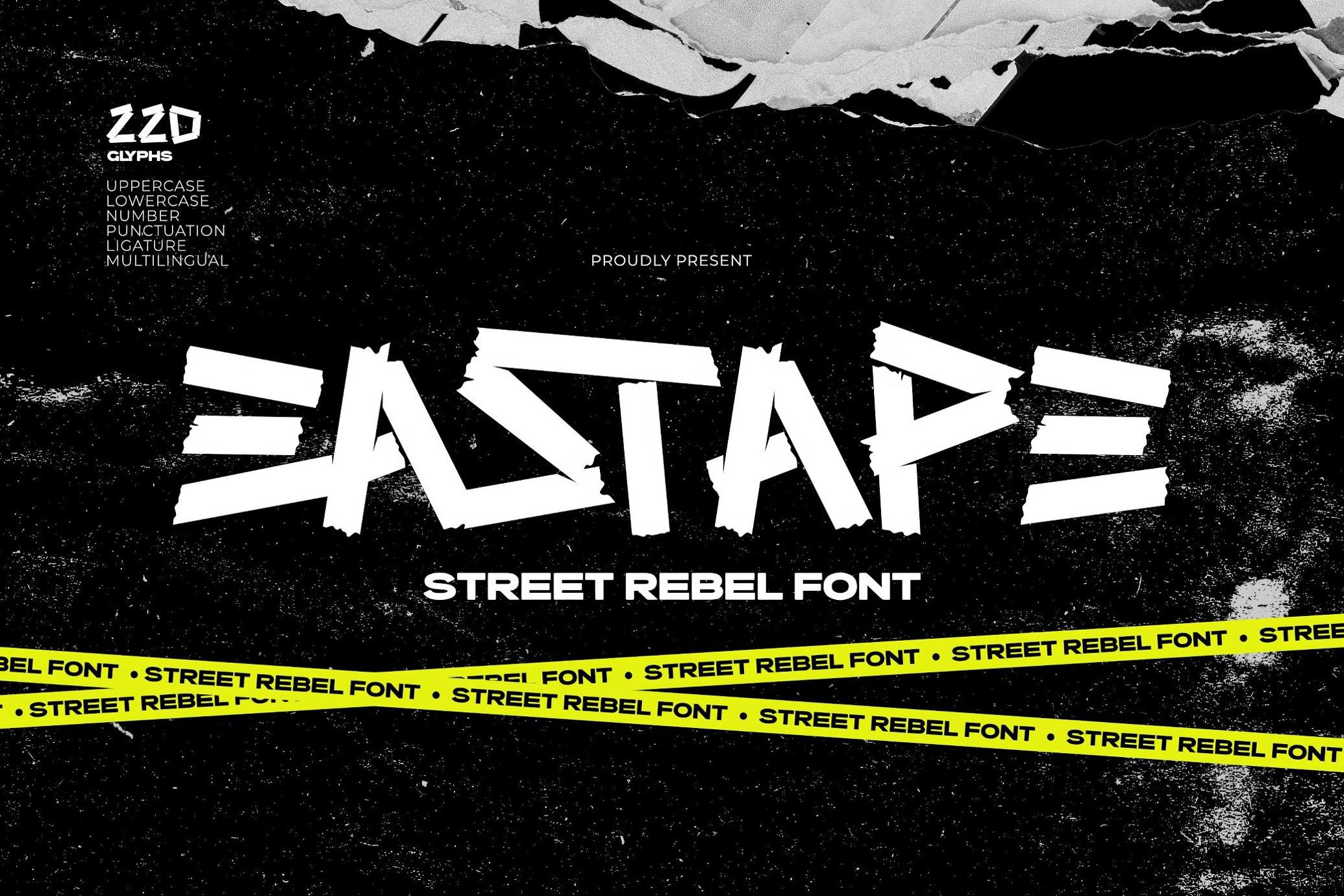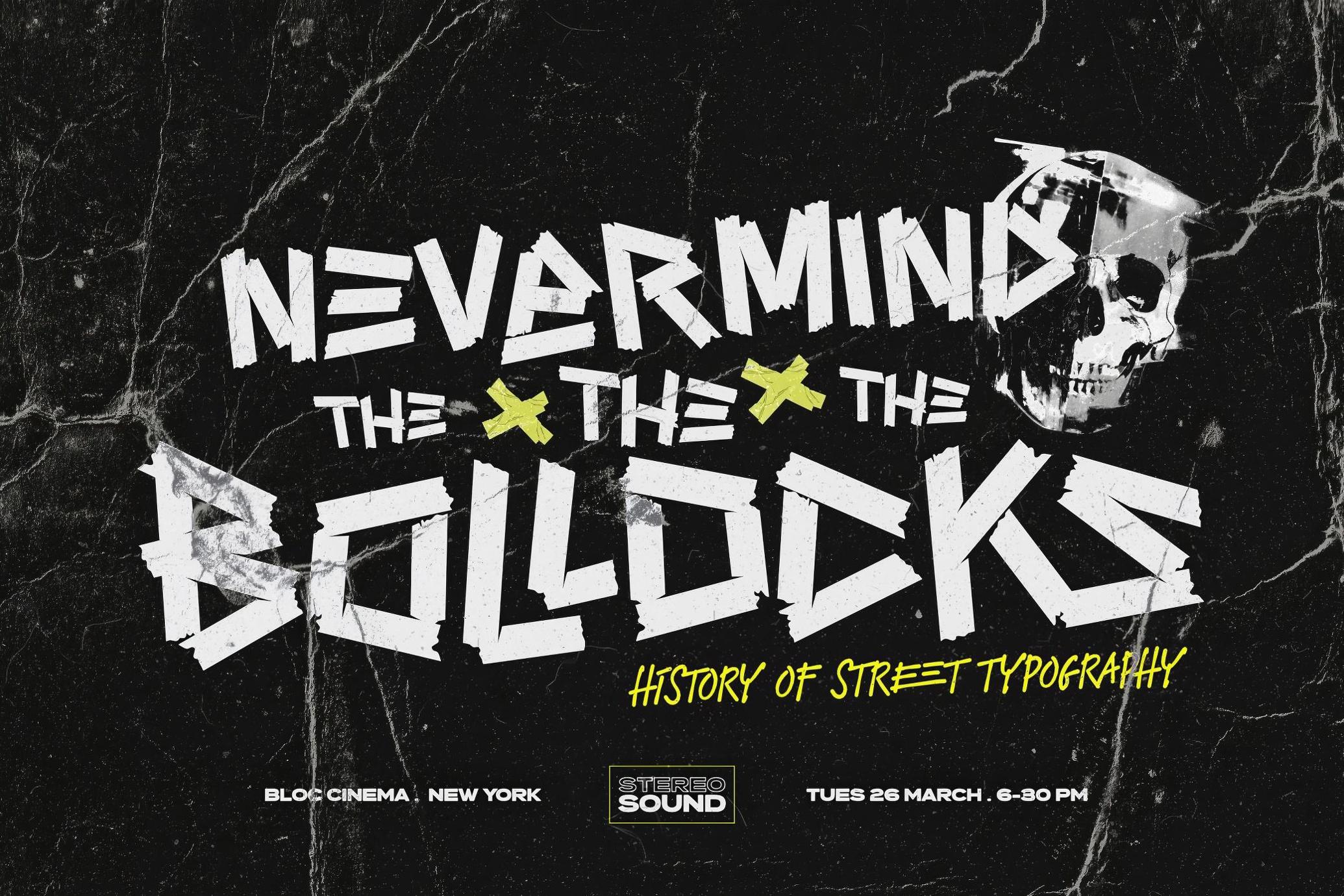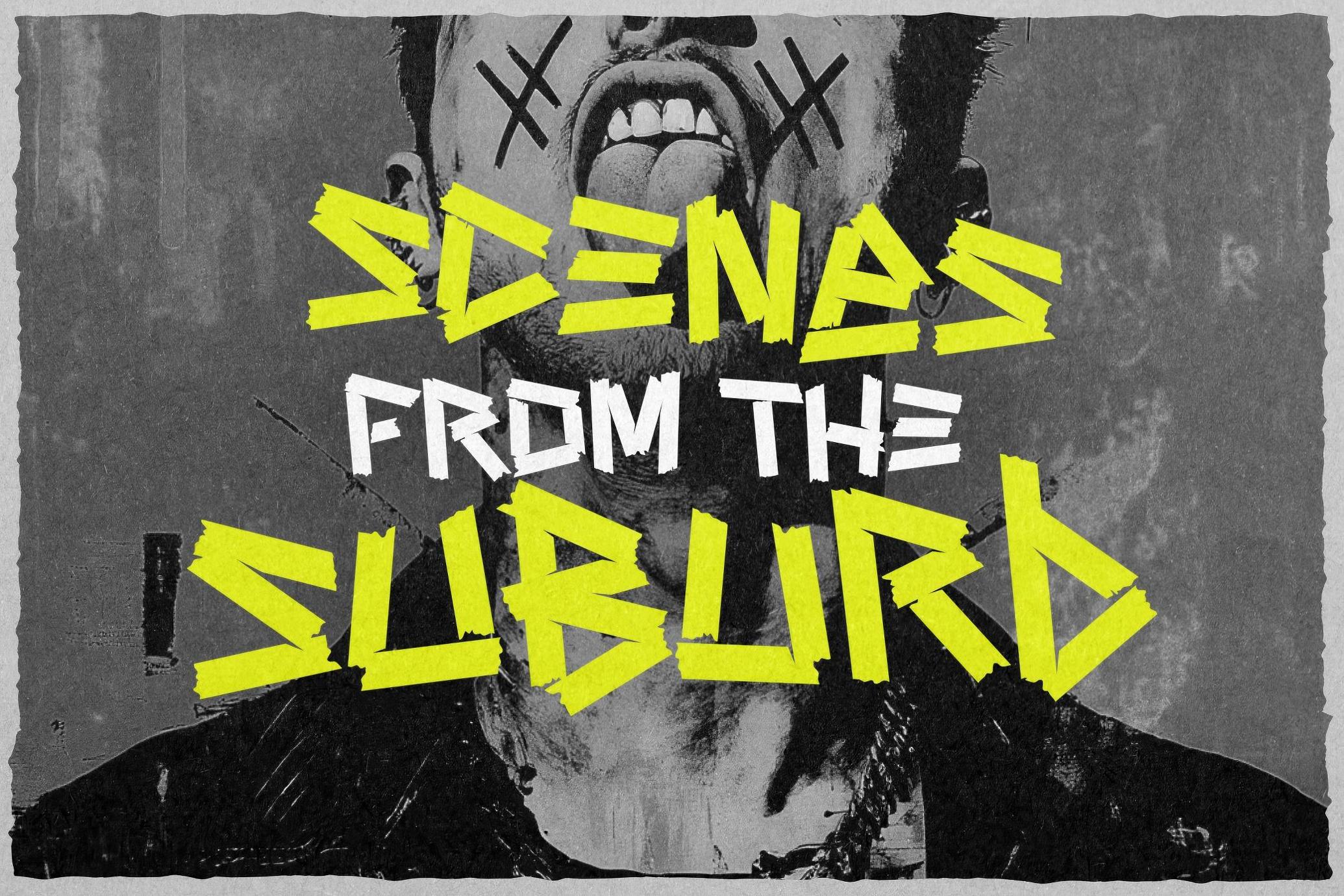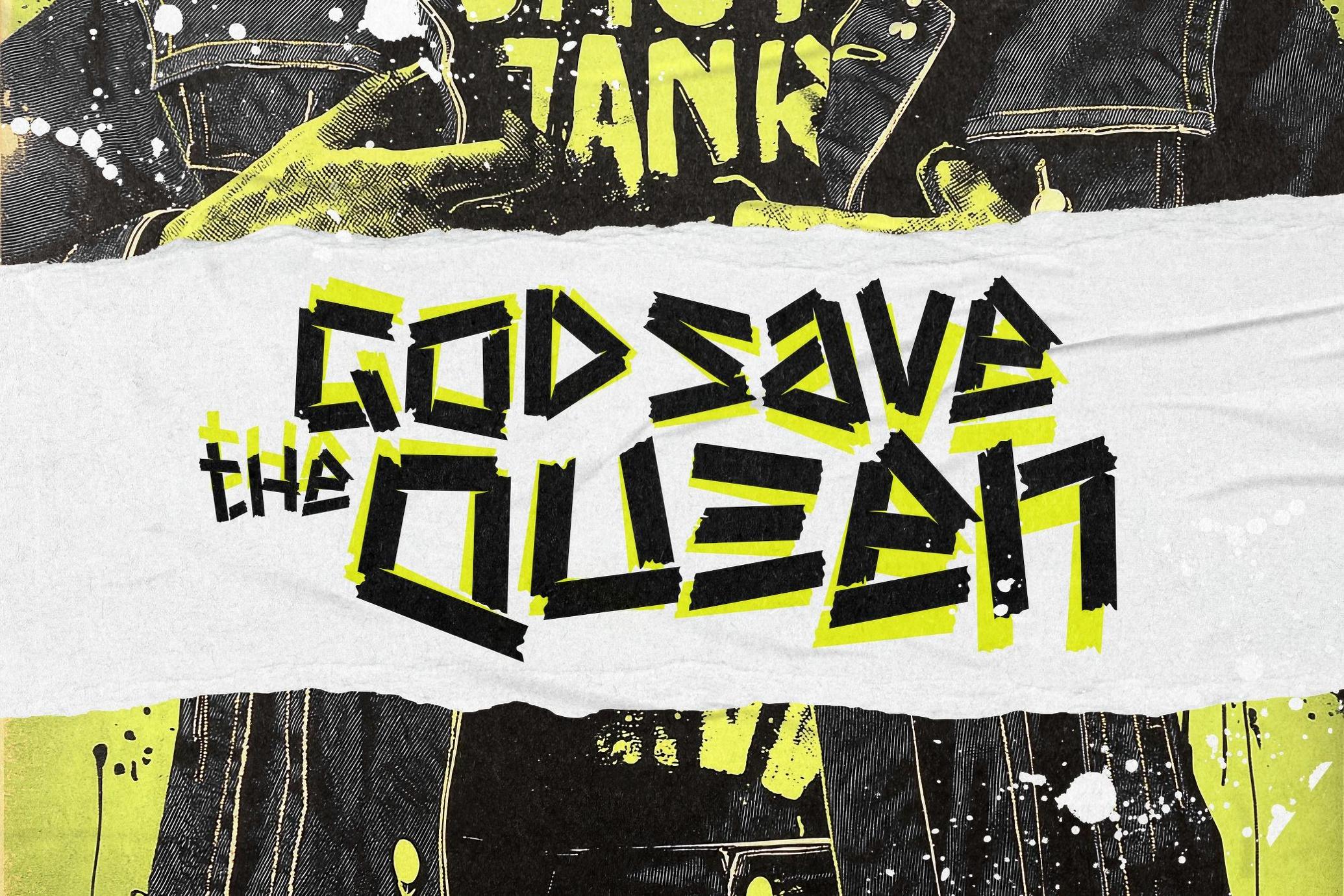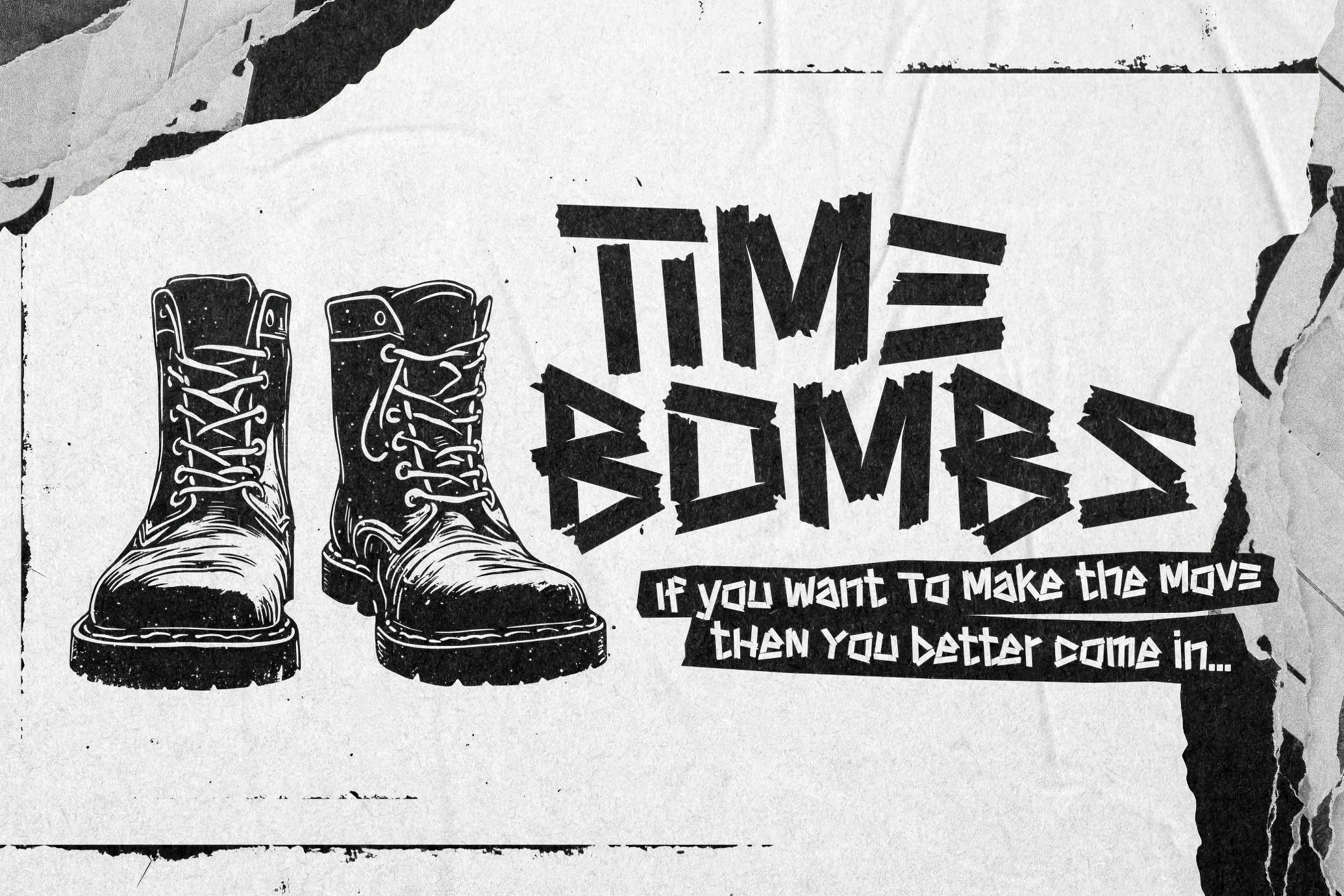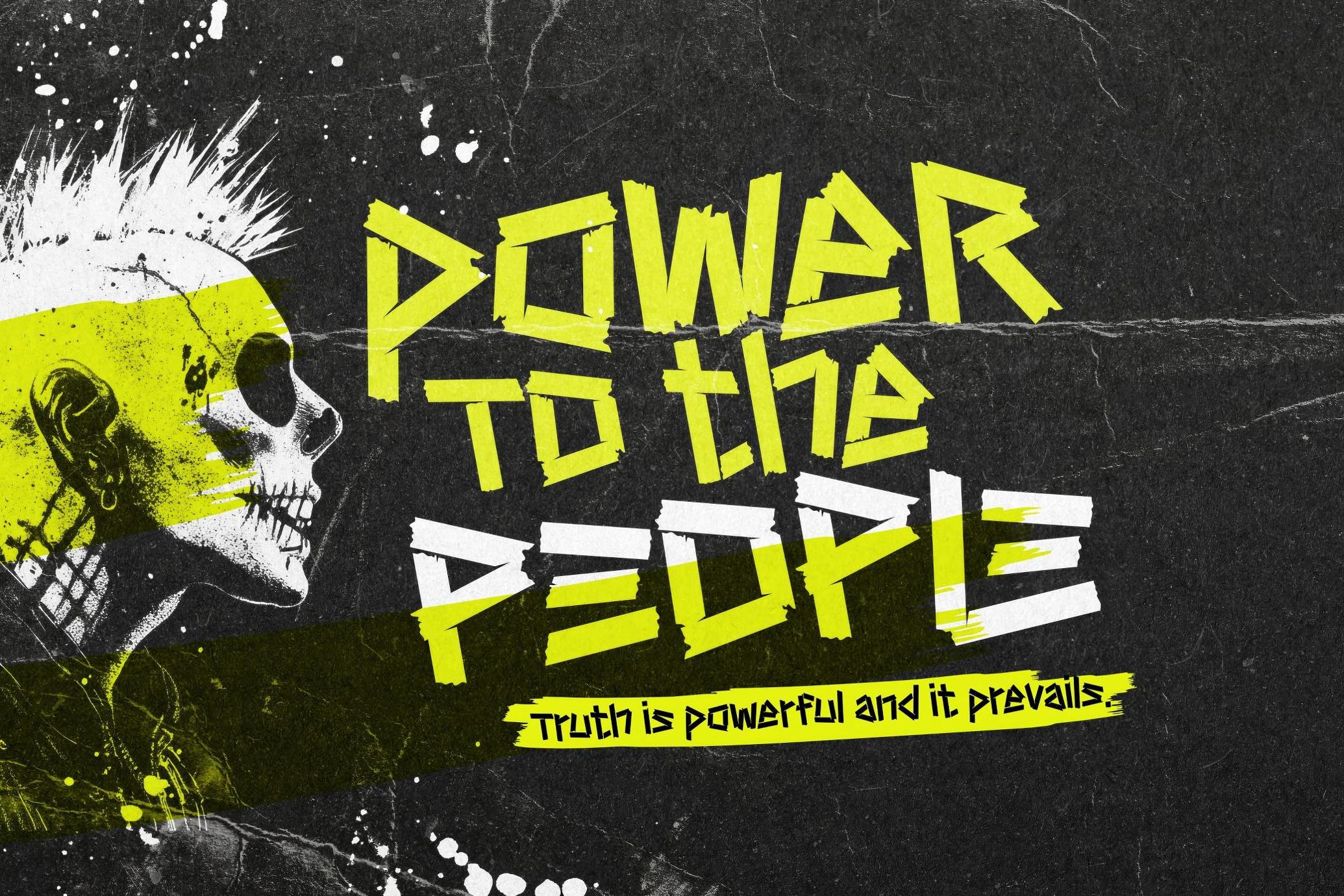
Eastape — Street Rebel Font
Eastape hits like a boot to a billboard. It's ripped, slapped, stuck with intent — and built from the chaos of duct tape tags and midnight messages. Every letter is a protest, every curve a callout. It’s not clean, not careful, and definitely not cute — it’s straight from the alley walls, protest lines, and underground crews that write their truth in bold slashes.
The set of glyphs includes upper & lowercase, ligatures, numbers & punctuation as well as multilingual characters. This is for the loud mouths, the graf kids, the zine punks, and streetwear heads who don’t flinch. If your work needs to be neat, keep scrolling. If it needs to hit like a stolen can of paint — Eastape’s your weapon.